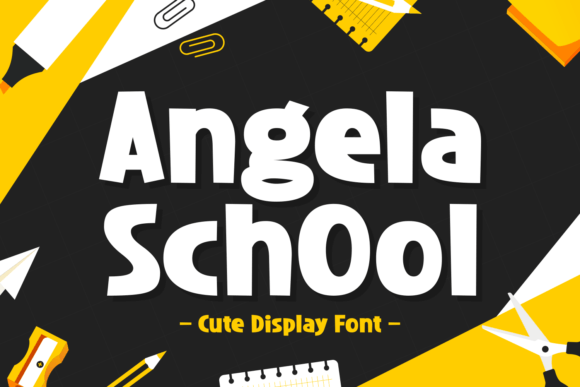
Dive into the world of exuberant typography with Angela School Font, a display font that captures the essence of childhood and learning. Its playful letterforms and friendly curves dance across the page, evoking a sense of warmth and joy that's perfect for educational materials, children's books, and school-related designs.
Unleash your creativity and add a touch of whimsy to your projects with Angela School. Let its charming characters bring life to your posters, flyers, social media graphics, and website designs. The font's playful style is sure to captivate audiences and leave a lasting impression.
Angela School is a versatile font that adapts effortlessly to various design styles. Whether you're creating a fun and engaging presentation, designing an eye-catching marketing campaign, or simply adding a touch of playful charm to your personal projects, this font has got you covered.
So, embrace the magic of Angela School Font and let its delightful characters bring your creative visions to life. Experience the joy of typography and make your projects stand out from the crowd. Download Angela School Font today and embark on a journey of creative expression!